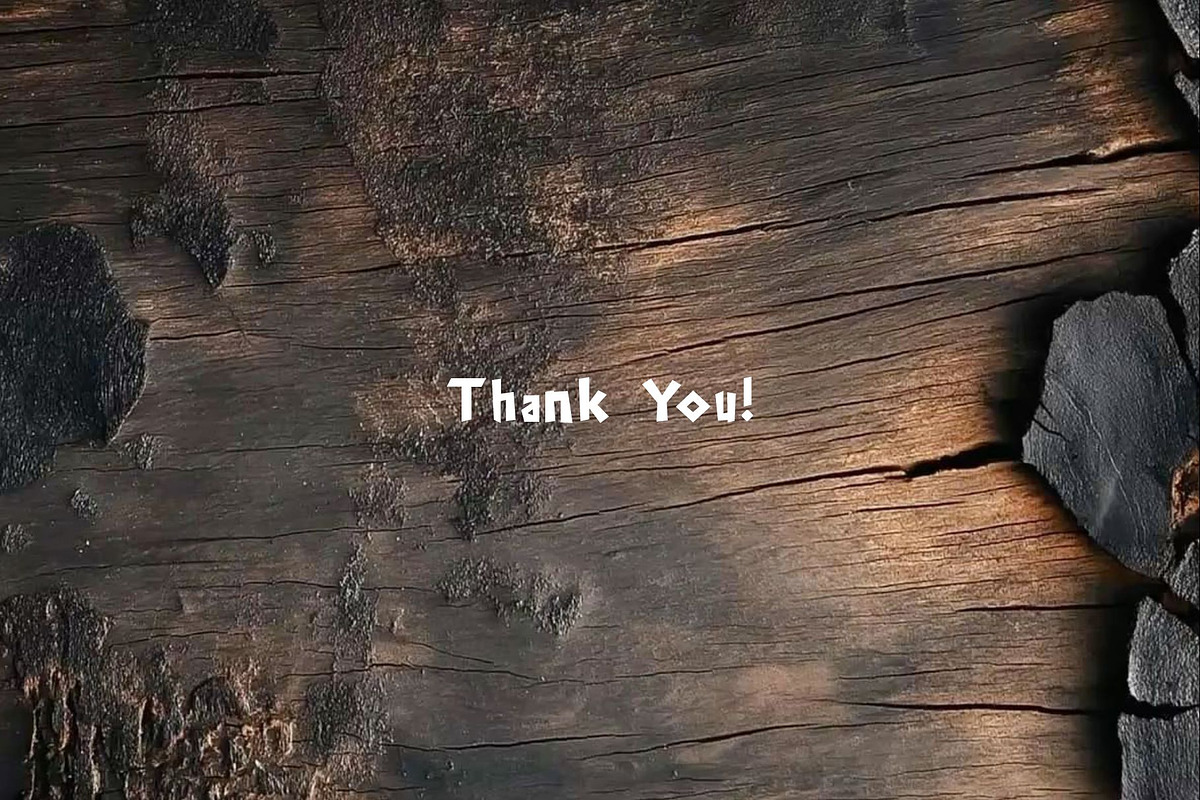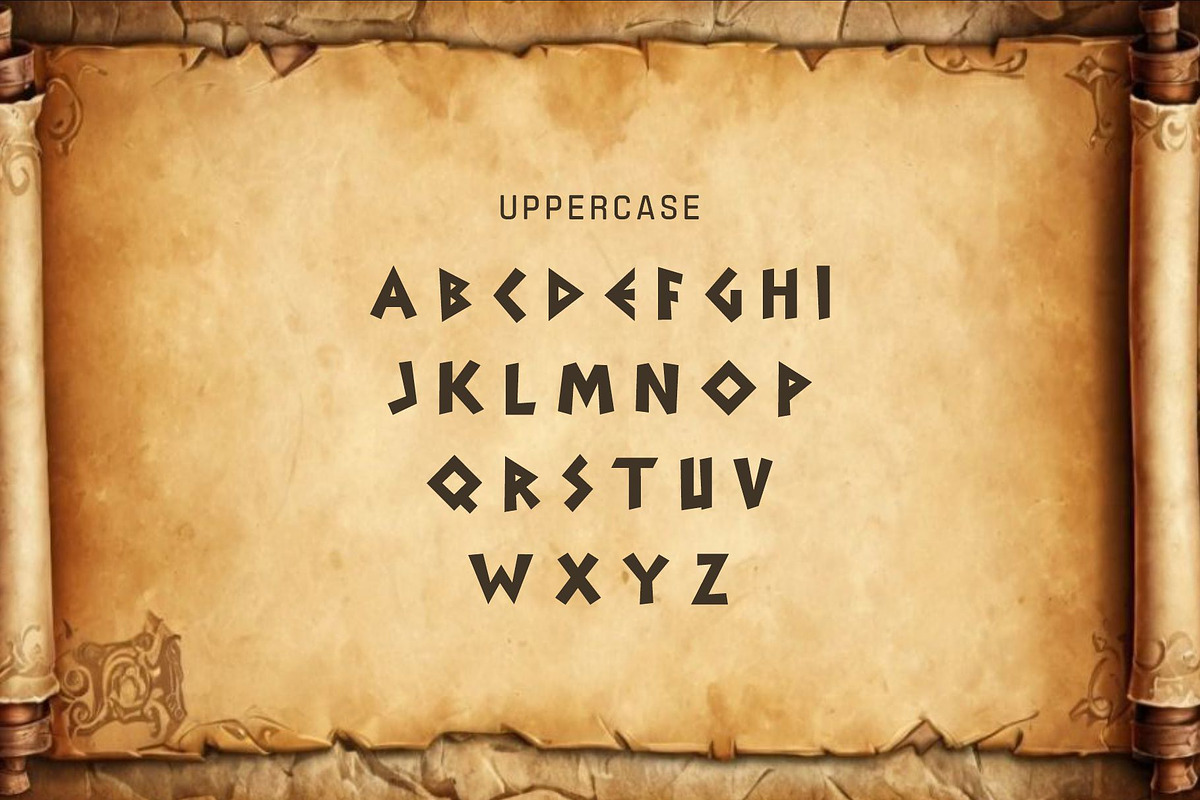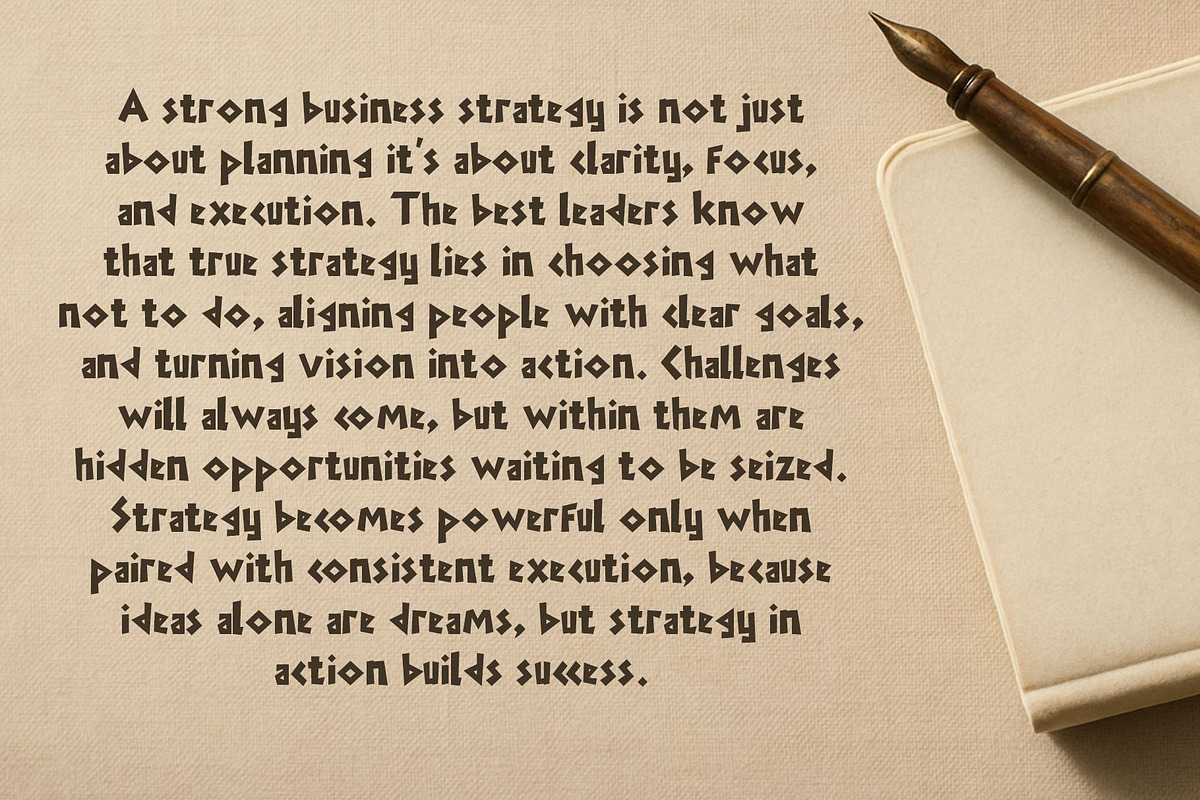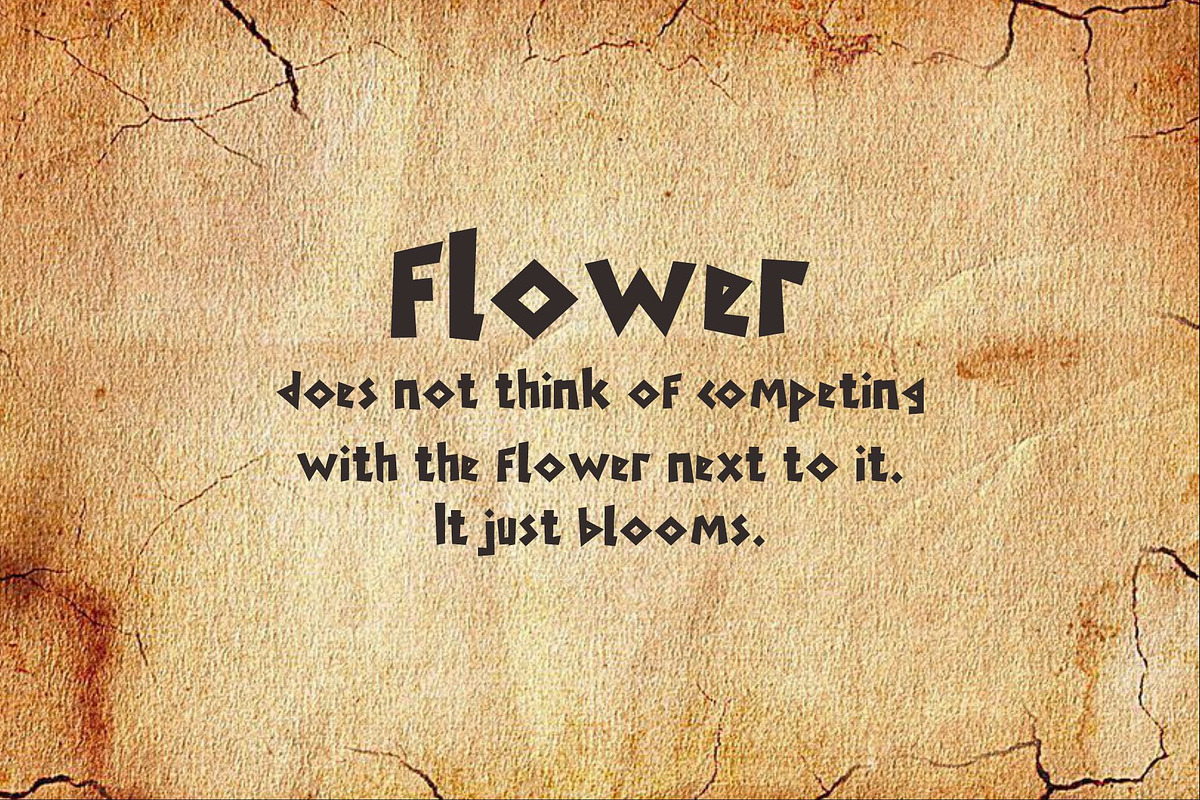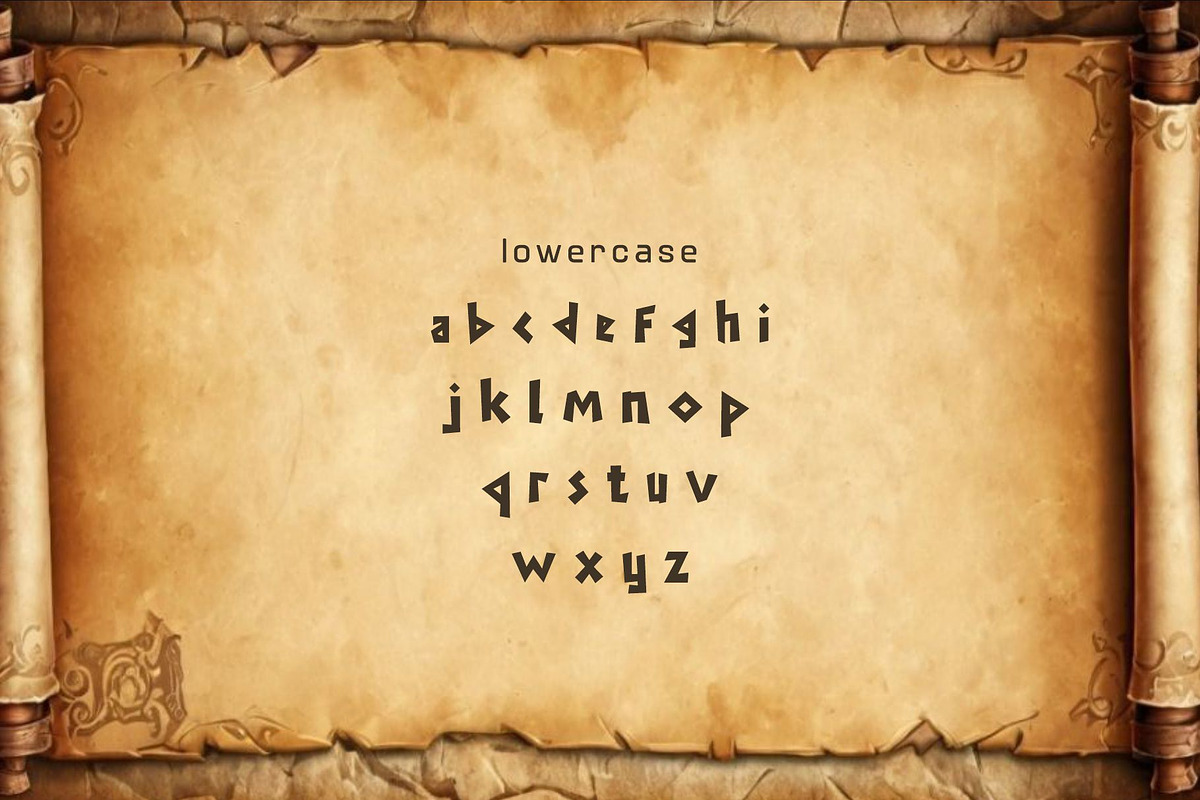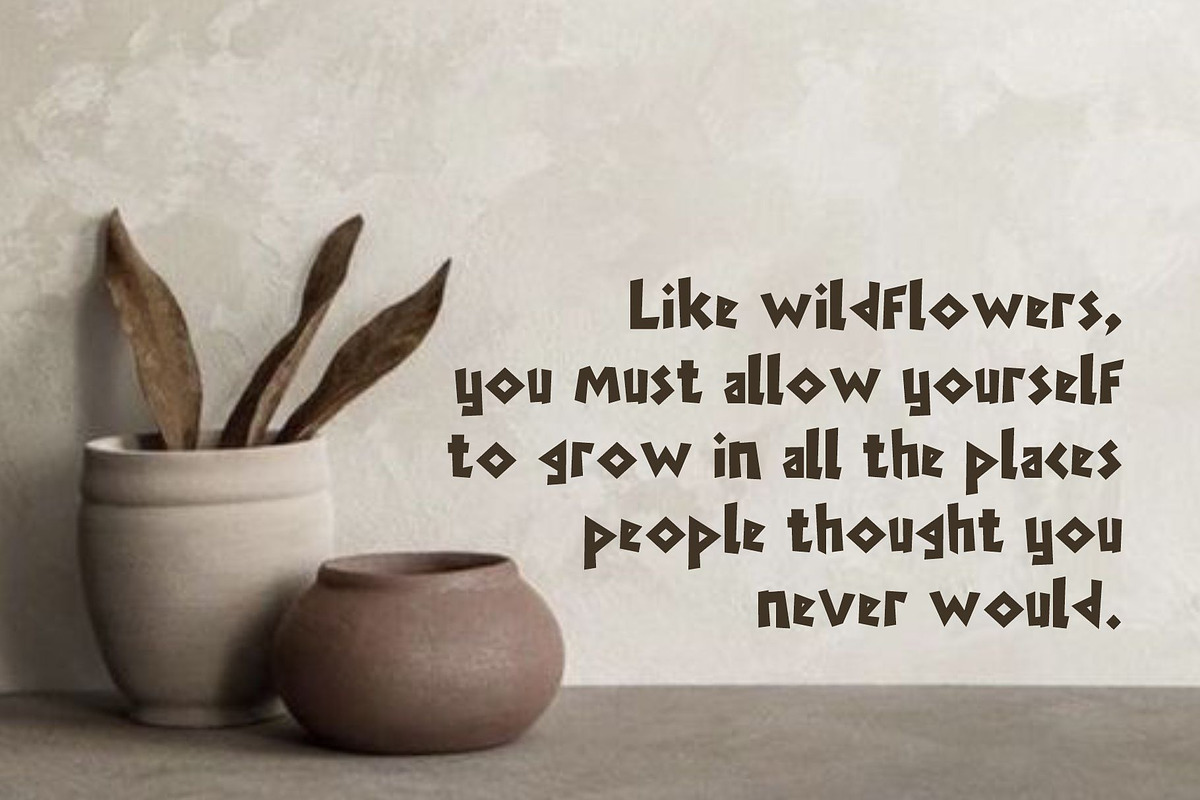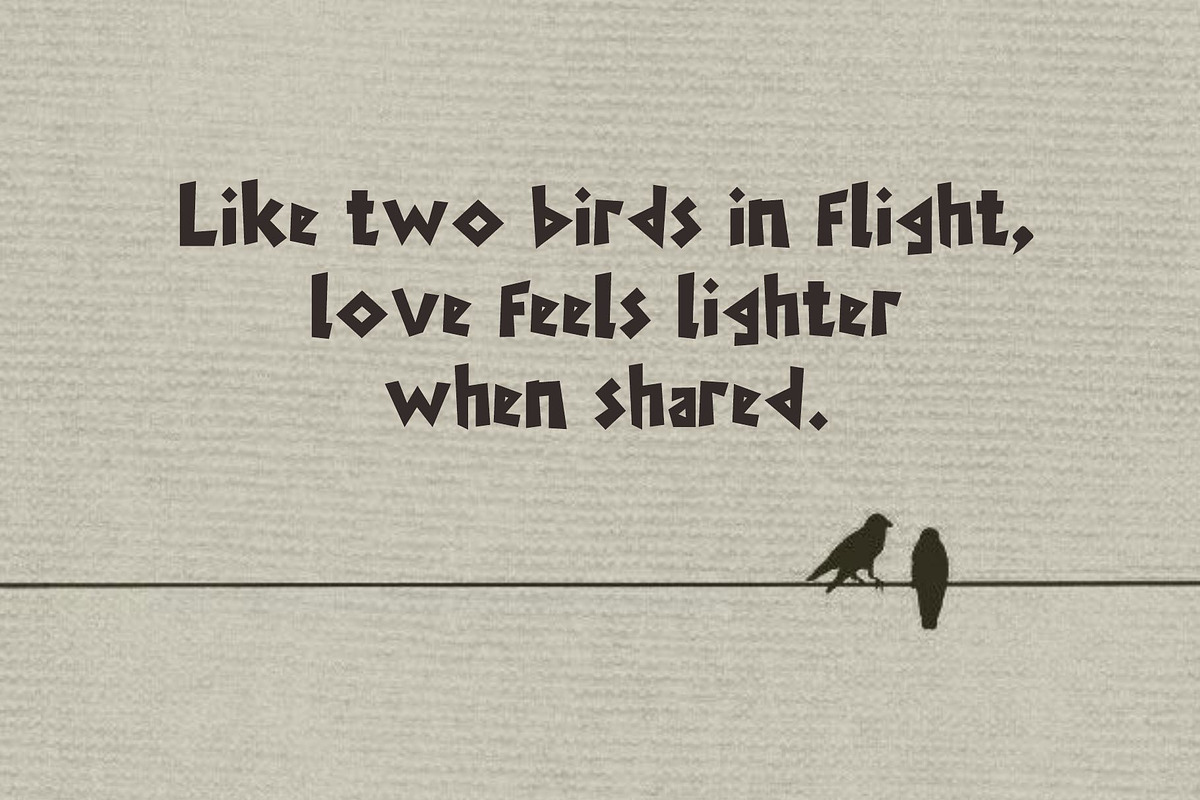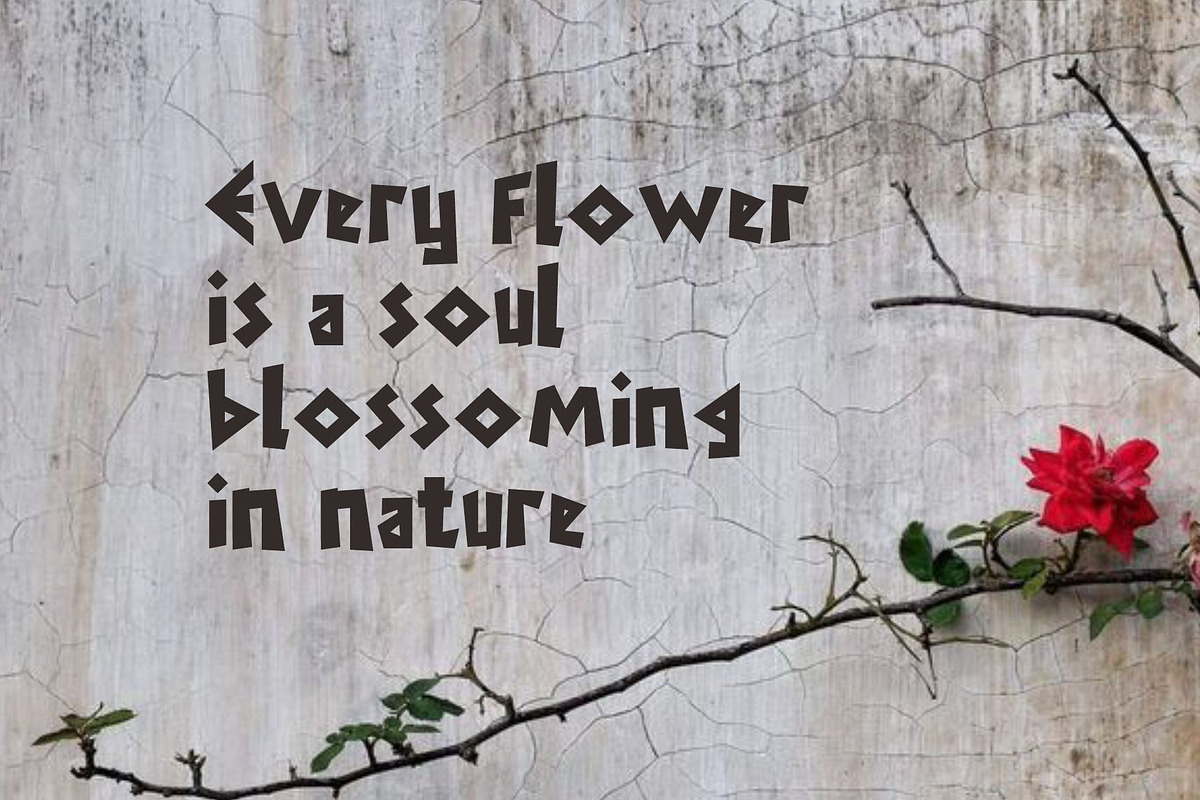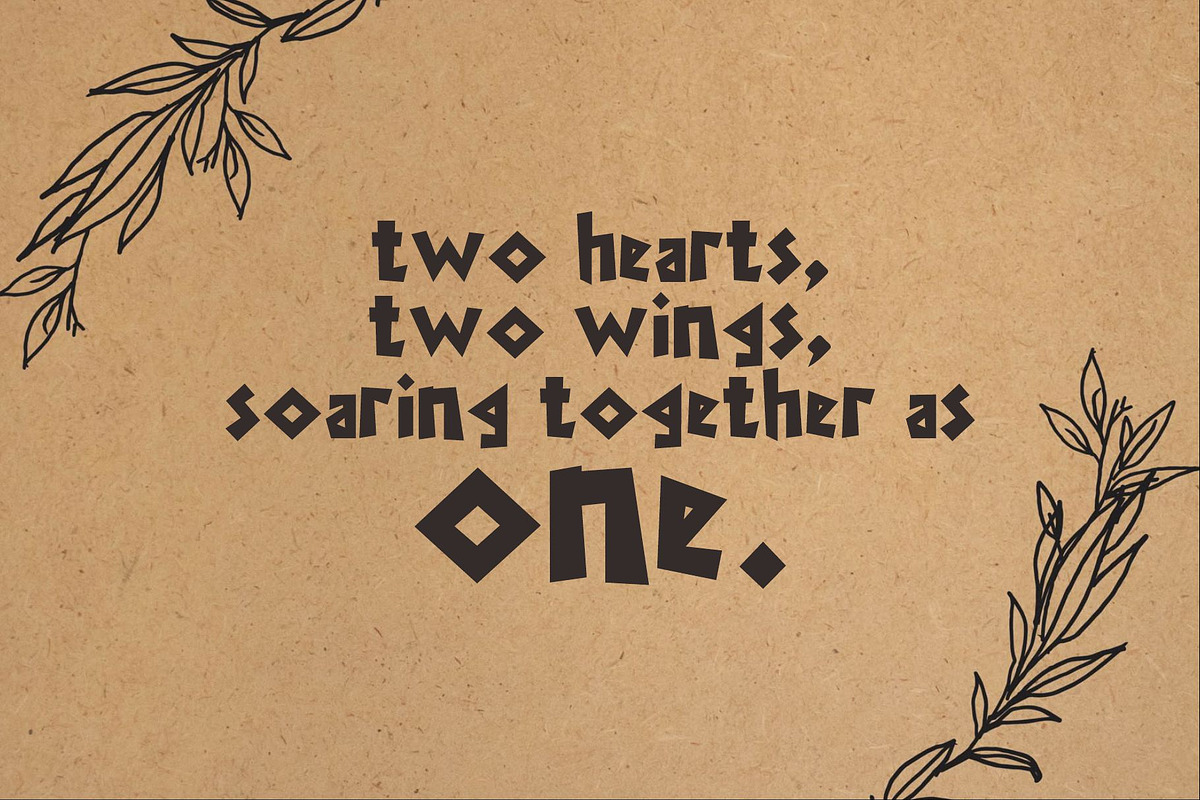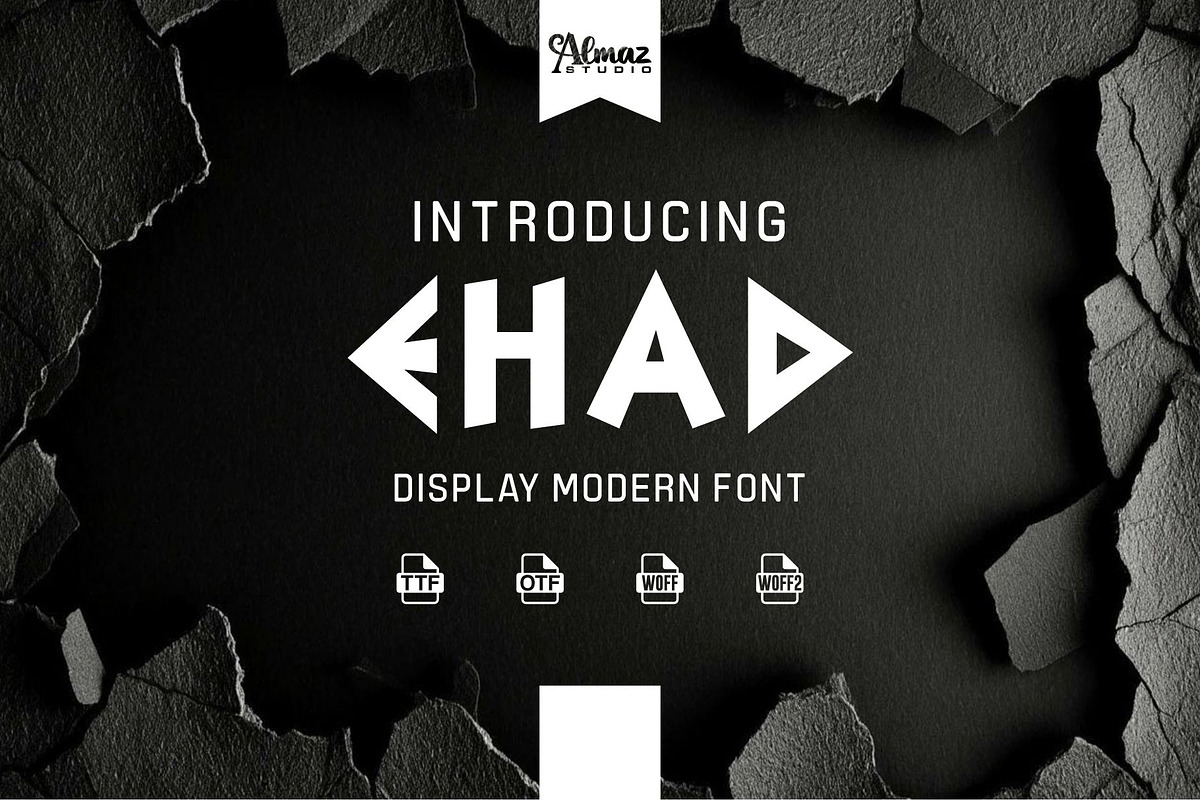
Ehad
Ehad is a modern display font with a bold, sharp, and unconventional design. It features strong geometric forms, angular cuts, and distinctive directional shapes that give the font a powerful and striking appearance. The unique structure of each letter creates a sense of movement and intensity, making it highly eye-catching.
Ehad is ideal for posters, branding, logos, music covers, streetwear designs, gaming visuals, and experimental graphic projects. Its edgy and contemporary style is perfect for designs that aim to be bold, rebellious, and visually impactful.